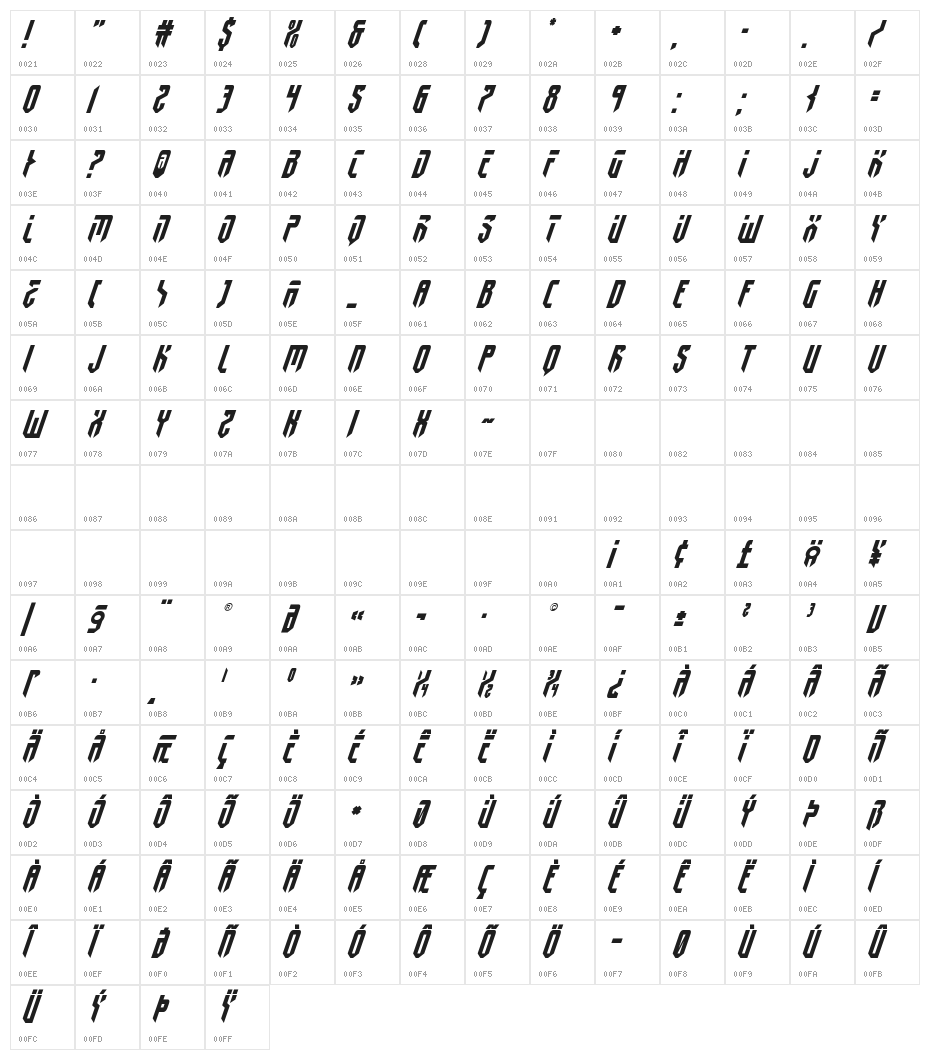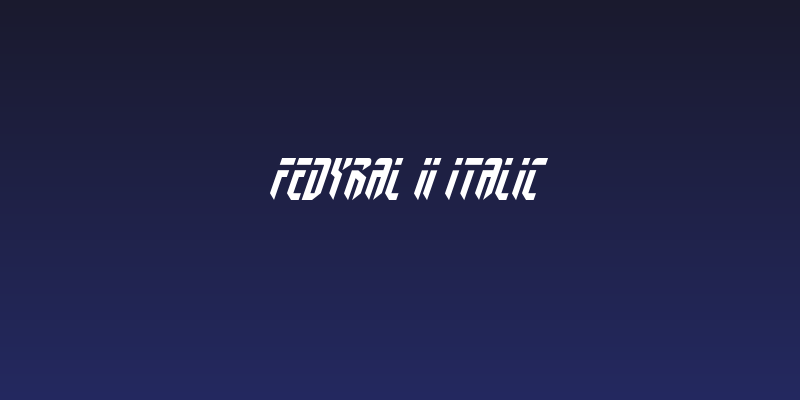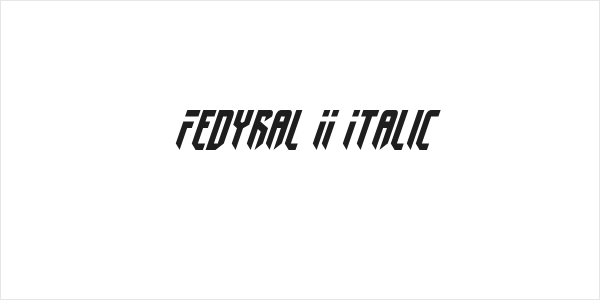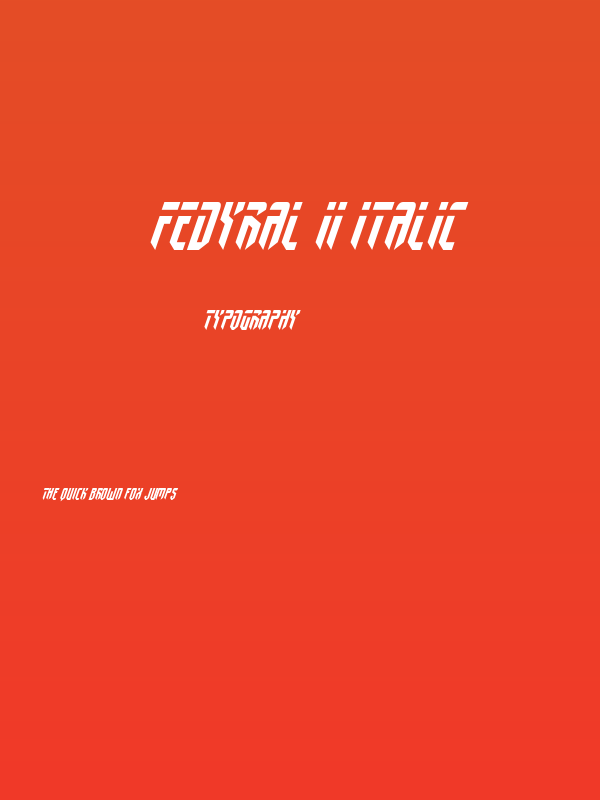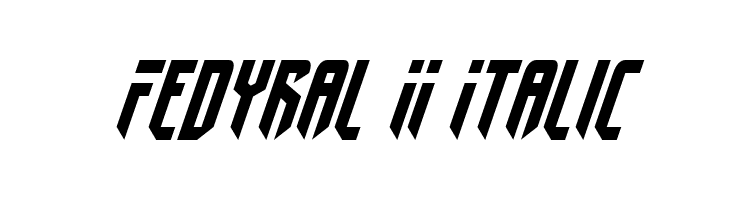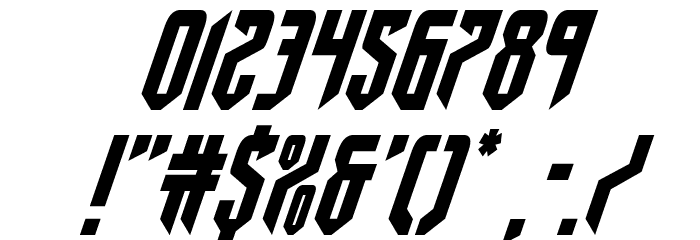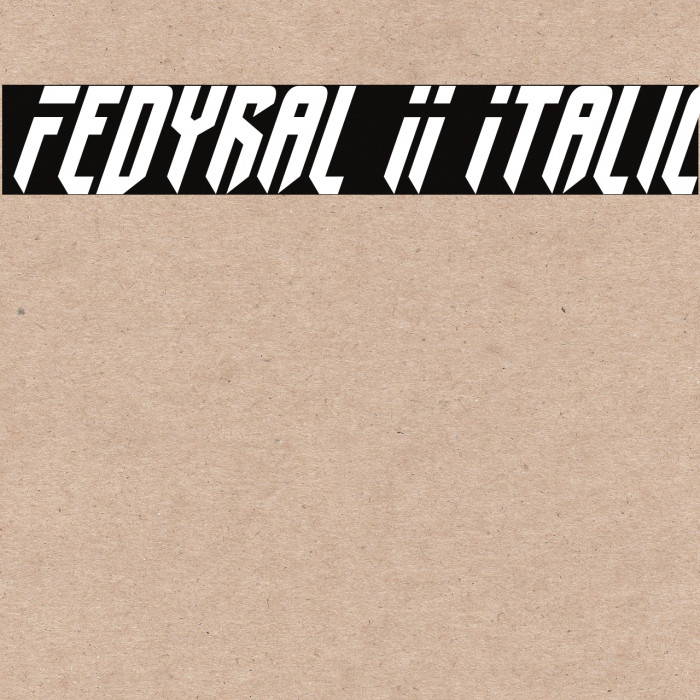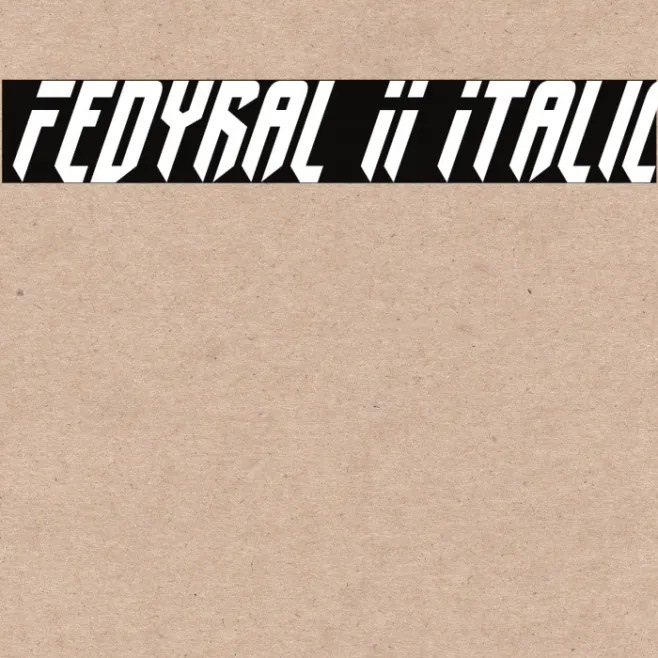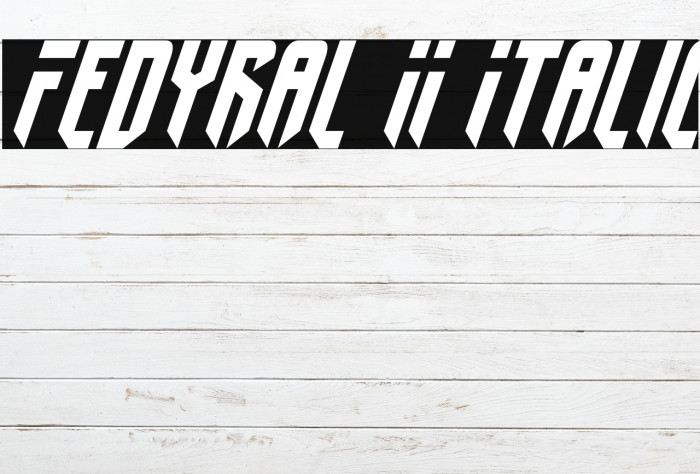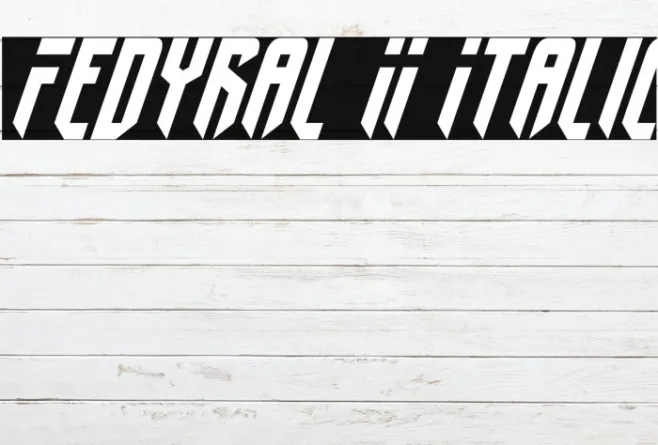
Fedyral II Italic Font
Fedyral II Italic Description
This font exhibits a bold, angular design with a futuristic and dynamic feel. The characters are sharply cut with a distinct slant, giving an italicized appearance that enhances its modern aesthetic. The uppercase and lowercase letters maintain a consistent style, with strong geometric forms and a sense of movement. Numbers and special characters follow the same design principles, ensuring uniformity across all glyphs. The font's aggressive angles and thick strokes make it stand out, ideal for projects that require a bold statement.
| Proposed Projects | Ideal for sports branding, video game titles, sci-fi themed projects, and dynamic posters. |